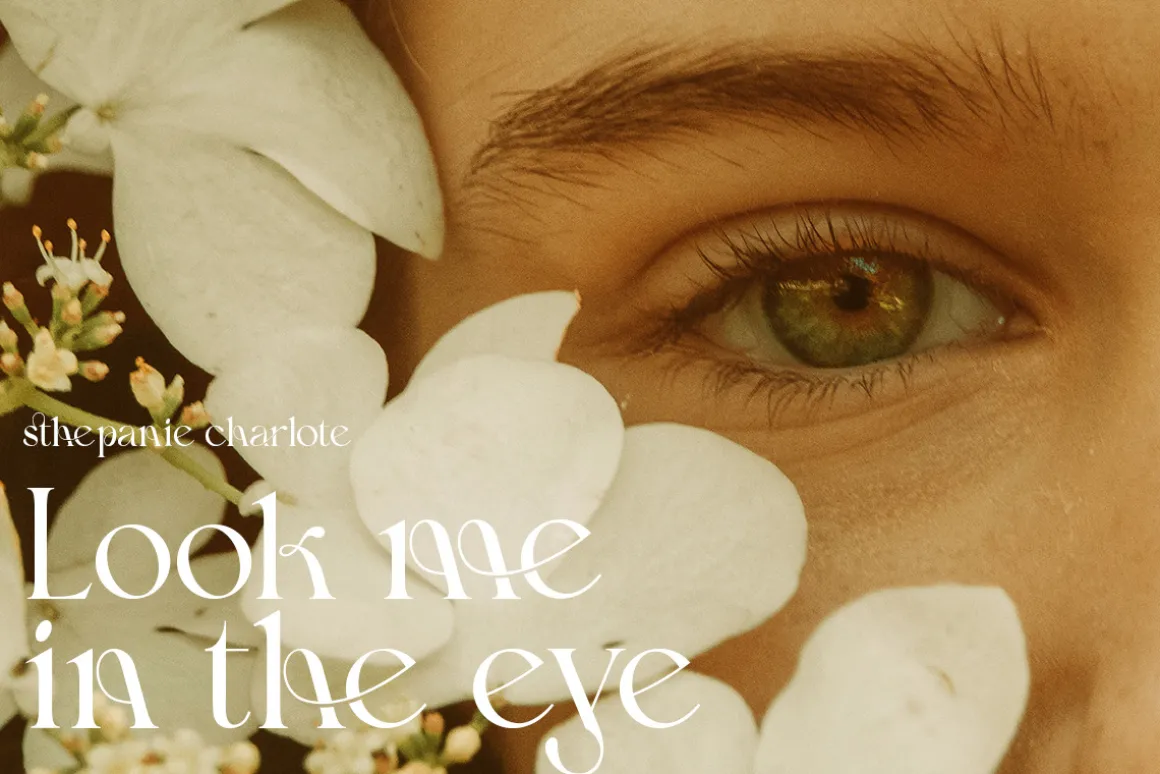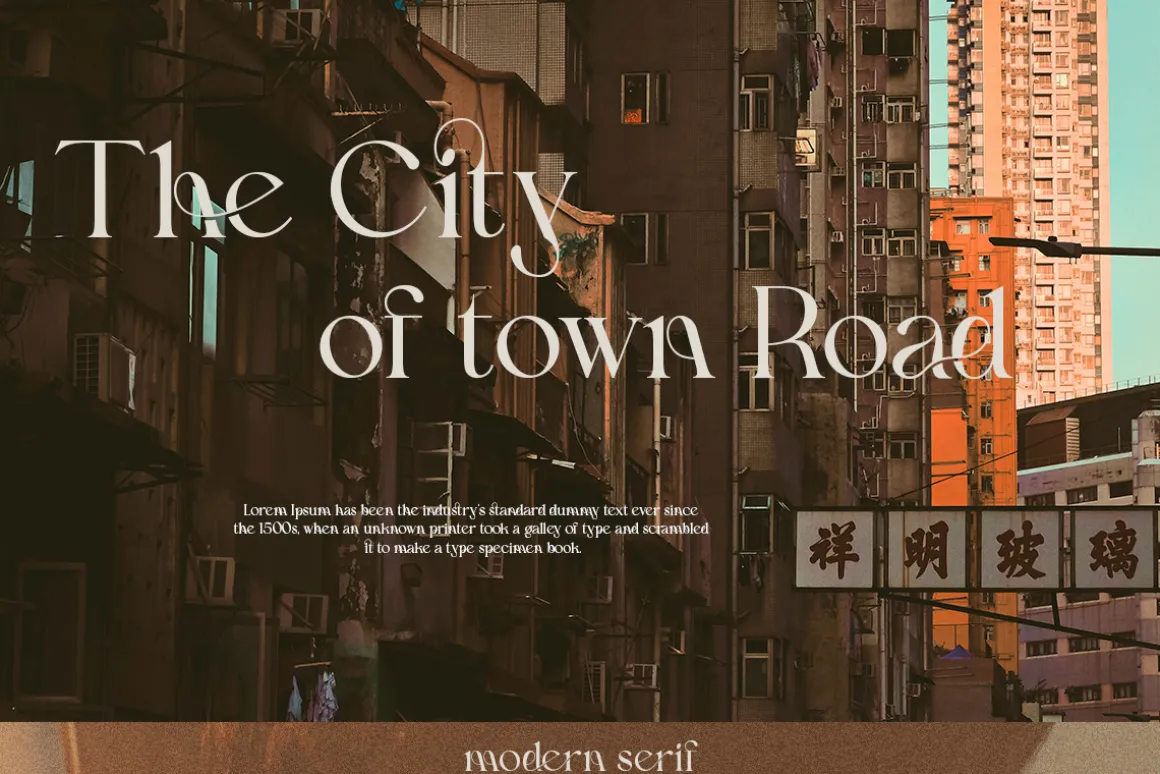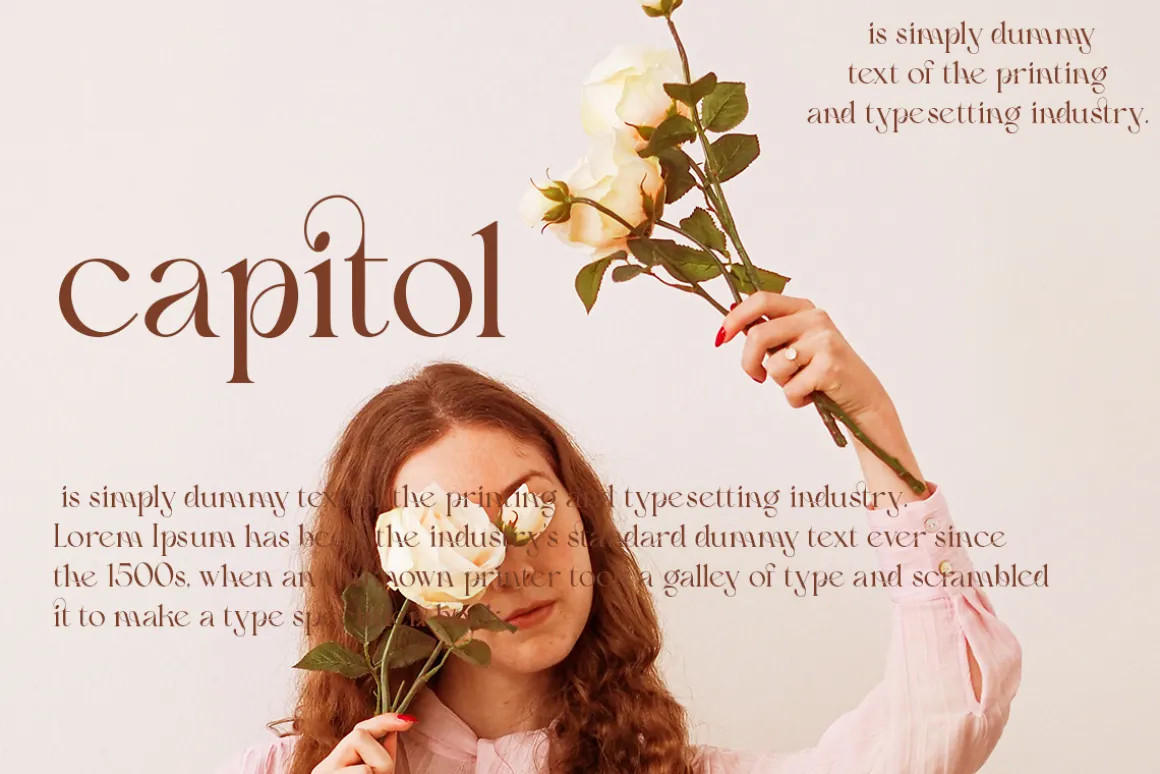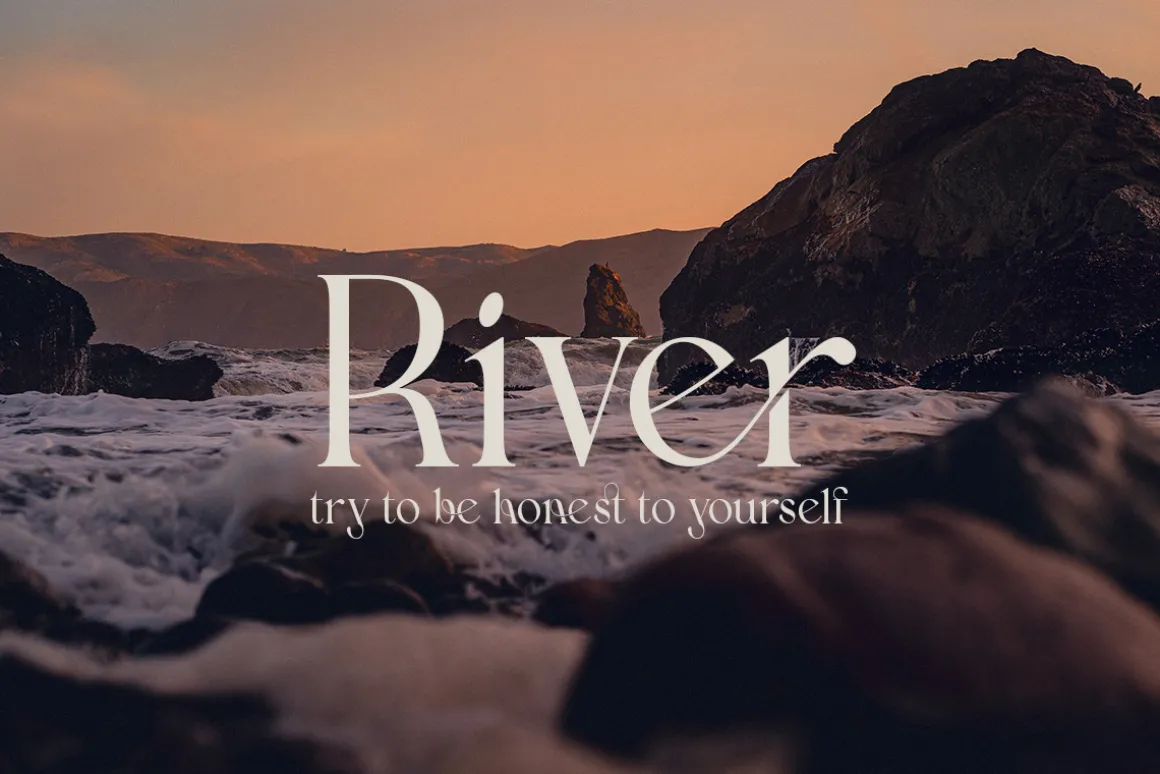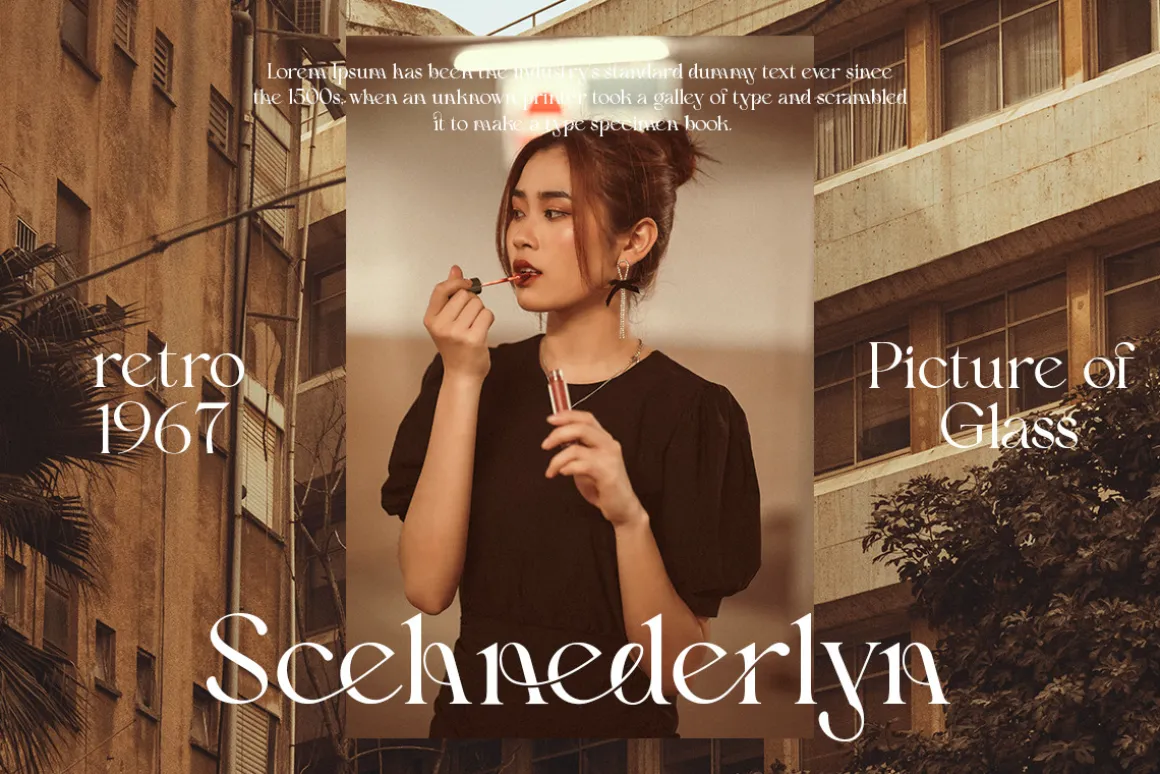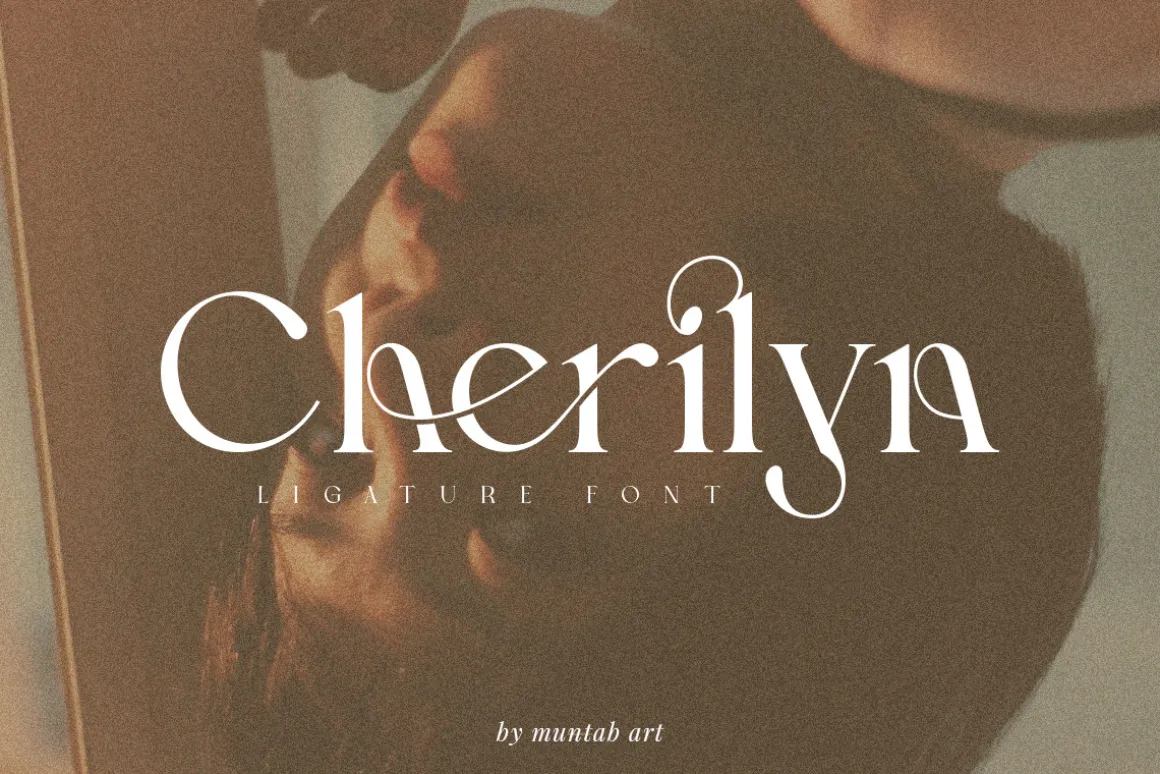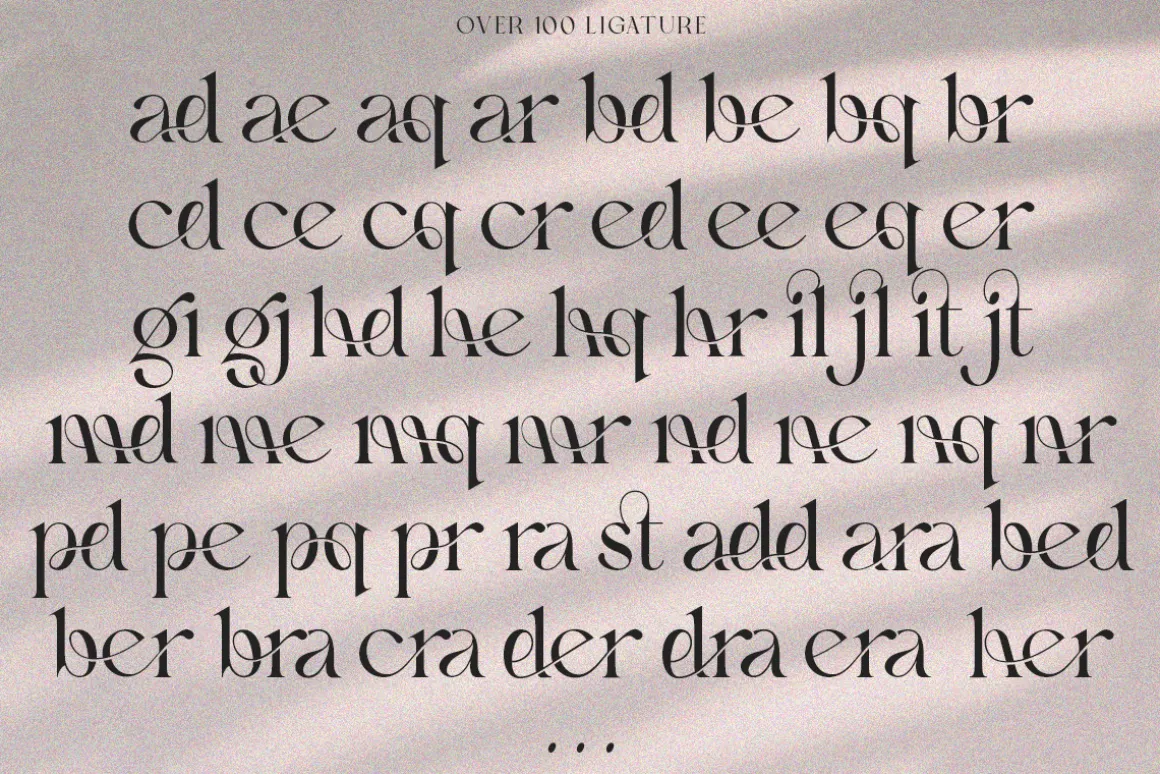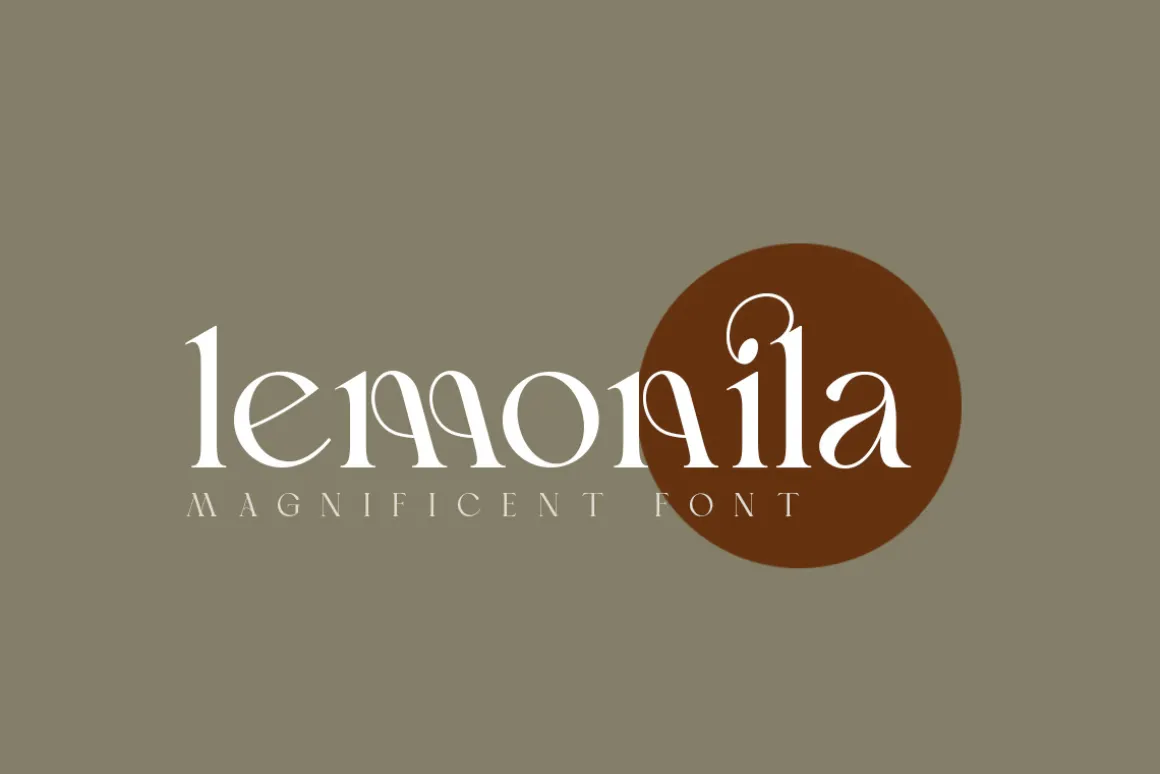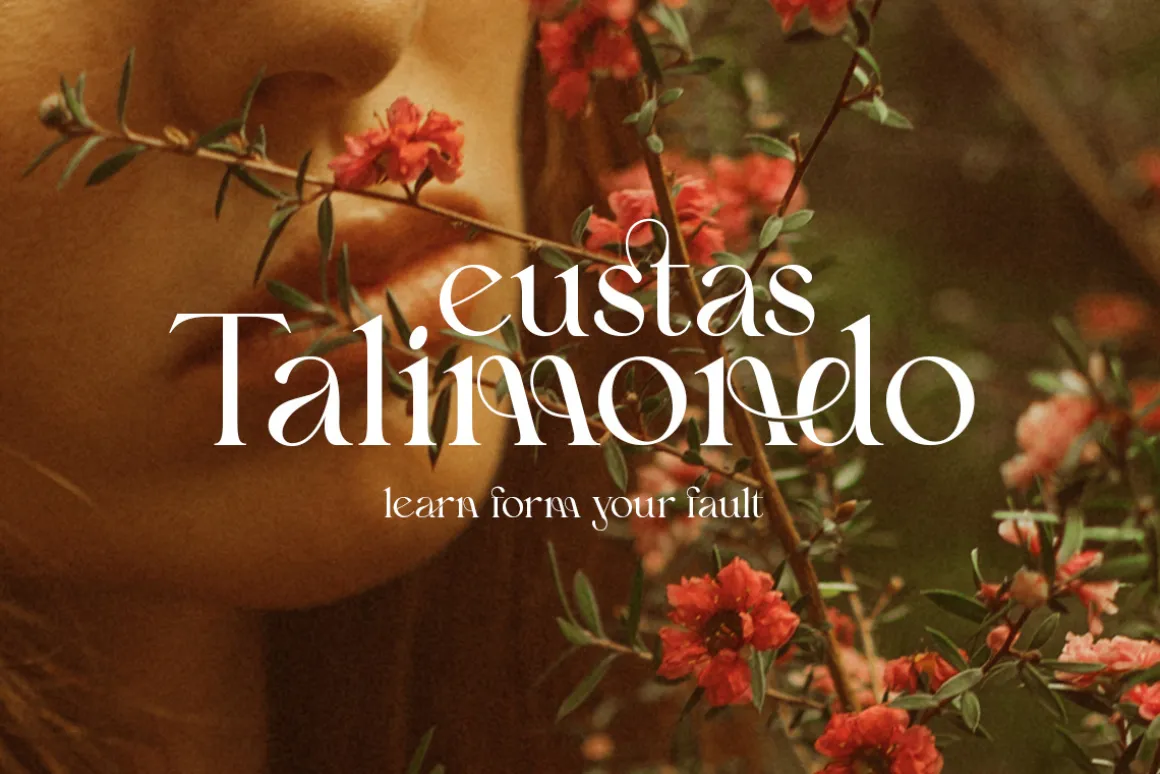
Cherilyn fonts includes uppercase letters, lowercase letters, numerals, a large range of punctuation. Serif font with modern stylish style include ligatures. Created for poster, web design, branding, illustrations, badges and some other works.